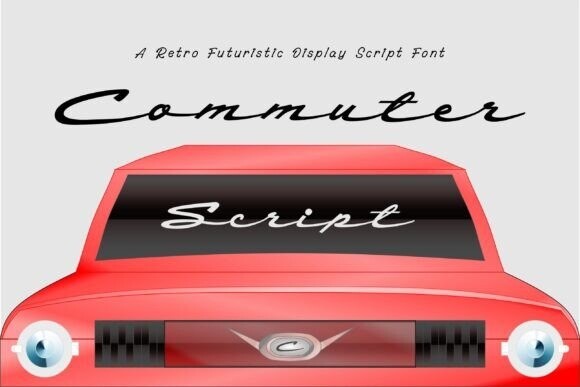
Commuter Script Font
Commuter Script Font is a retro futuristic display script font, a tecnhno font suitable for logo typ, branding, and other purpose of retro r modern technological futurstic design